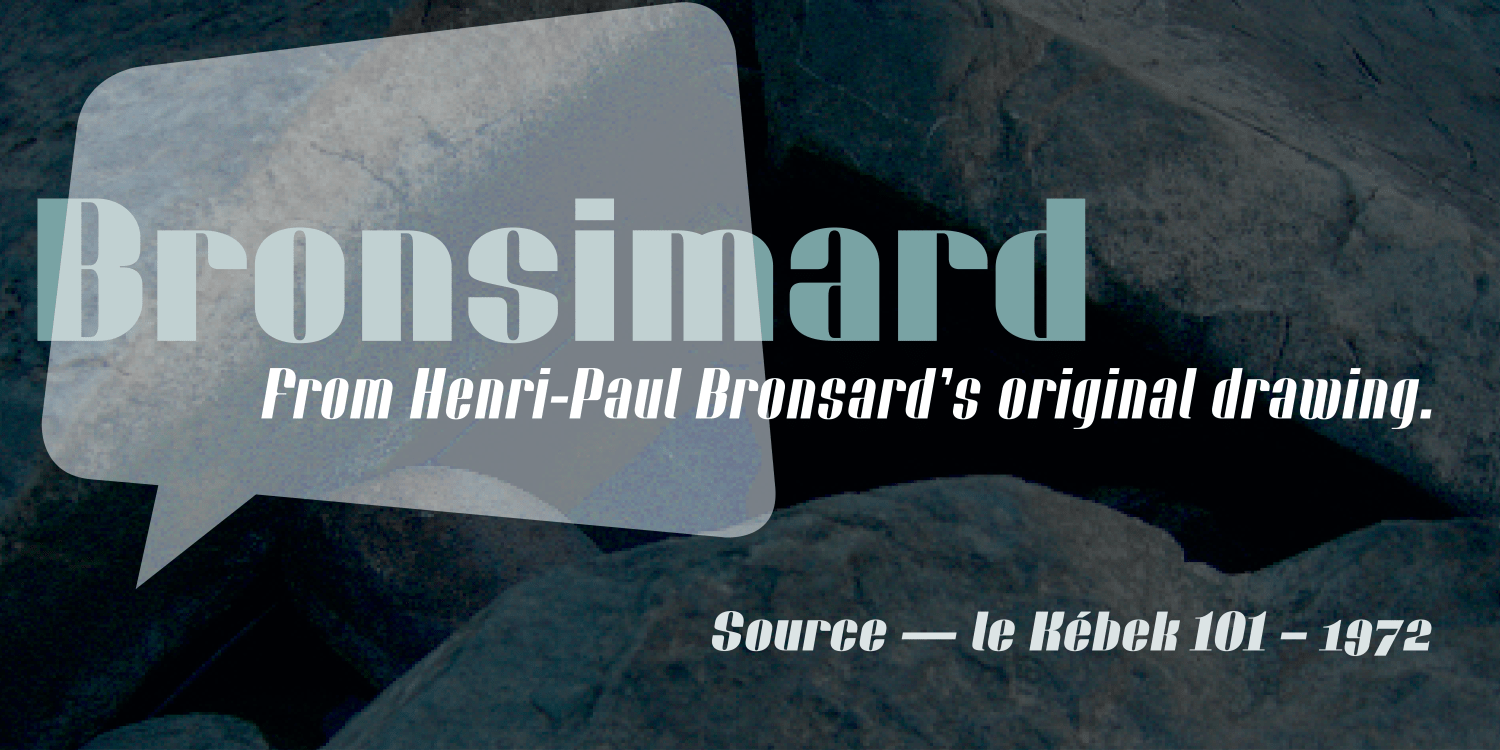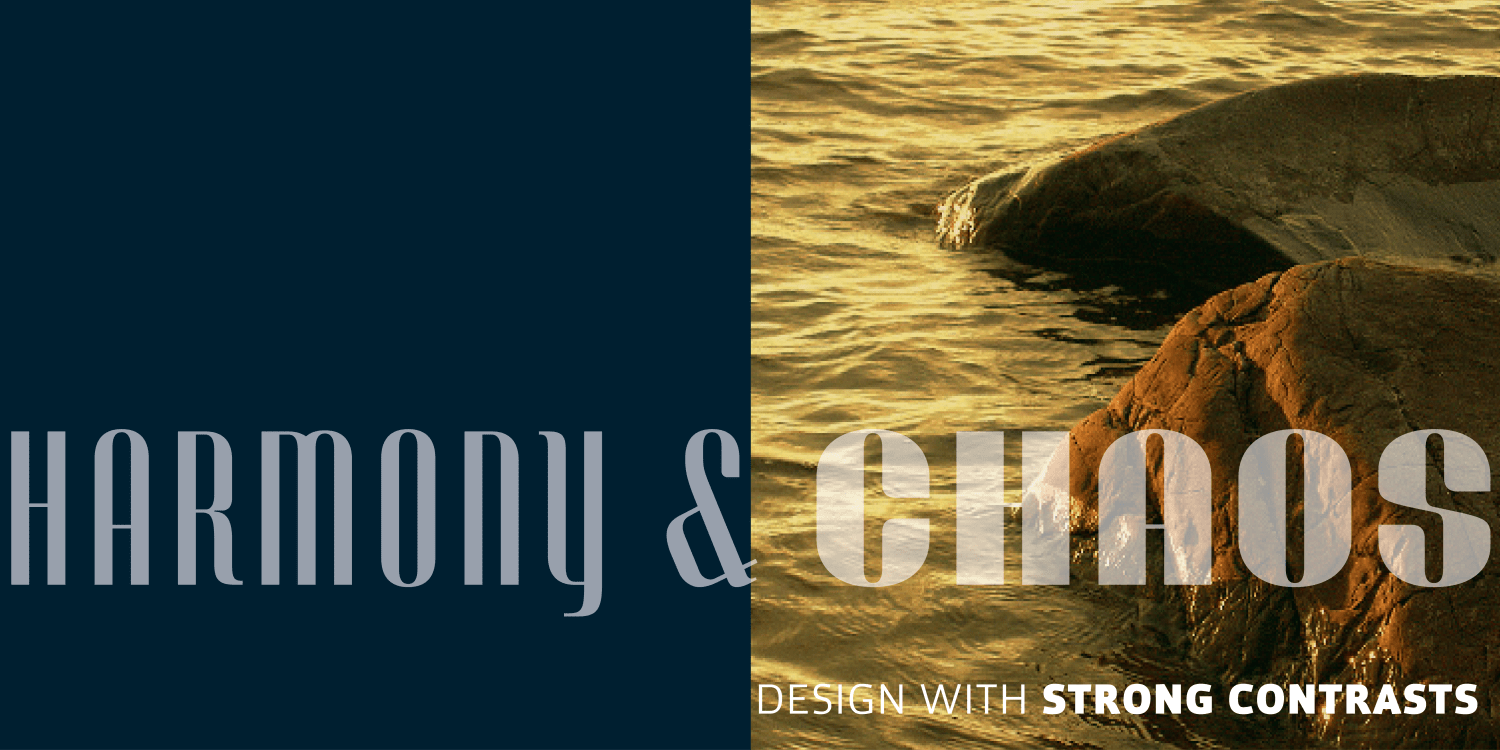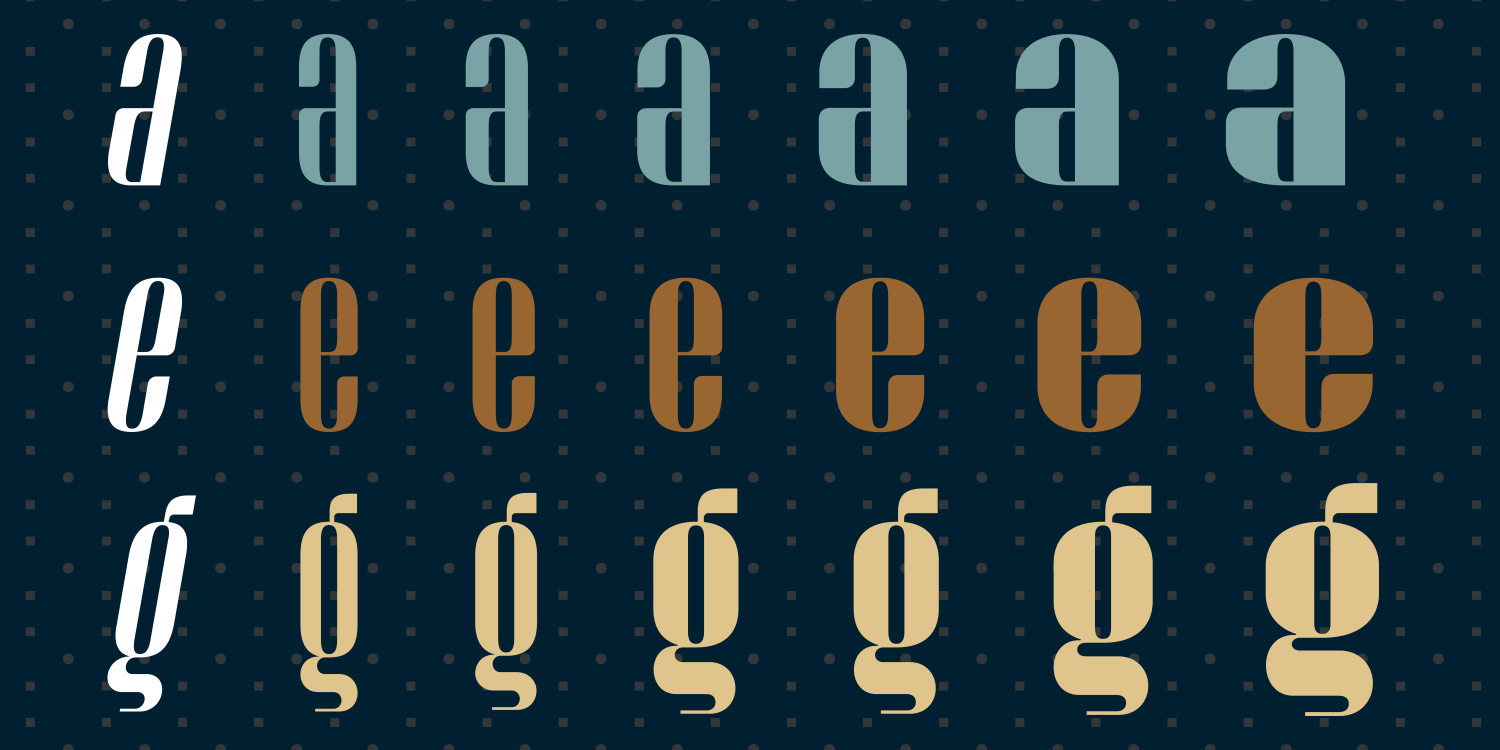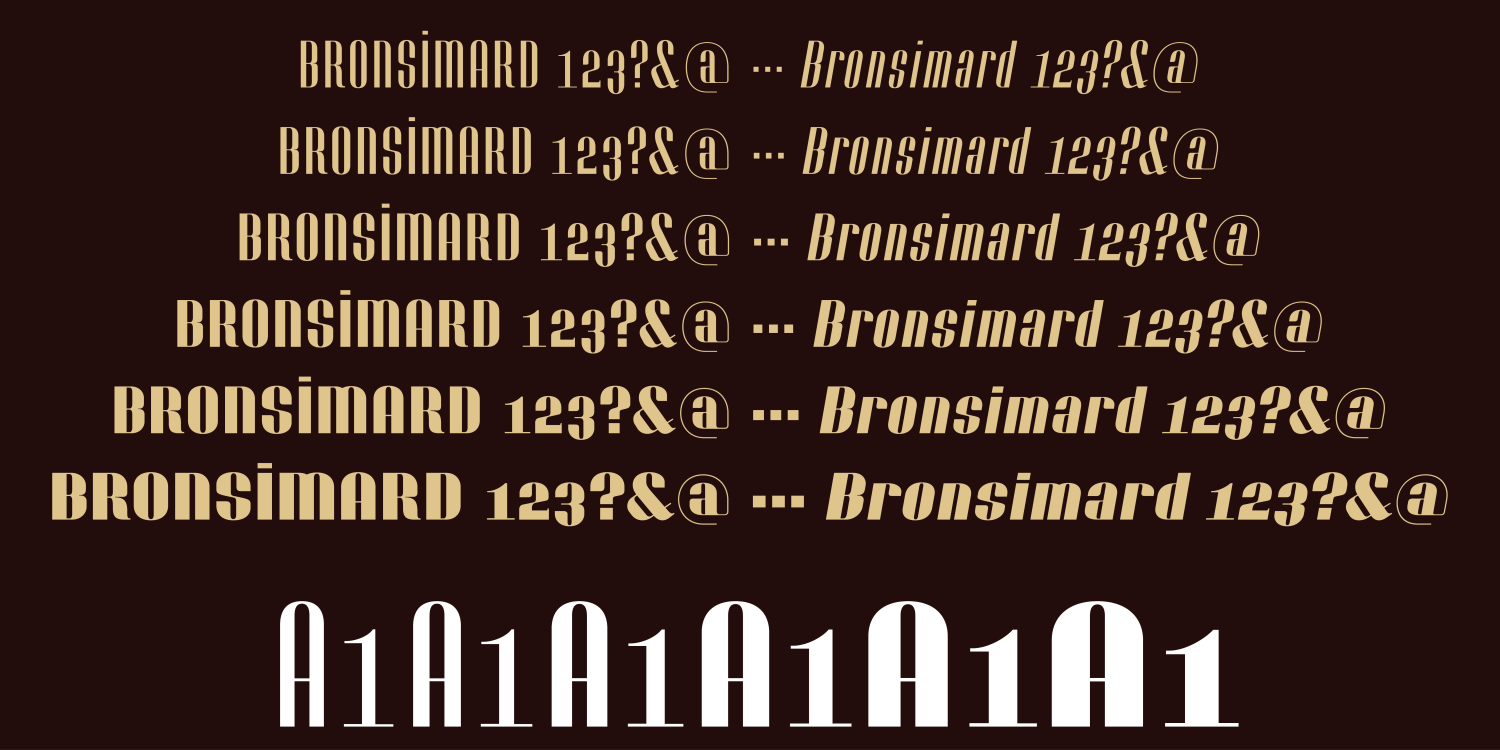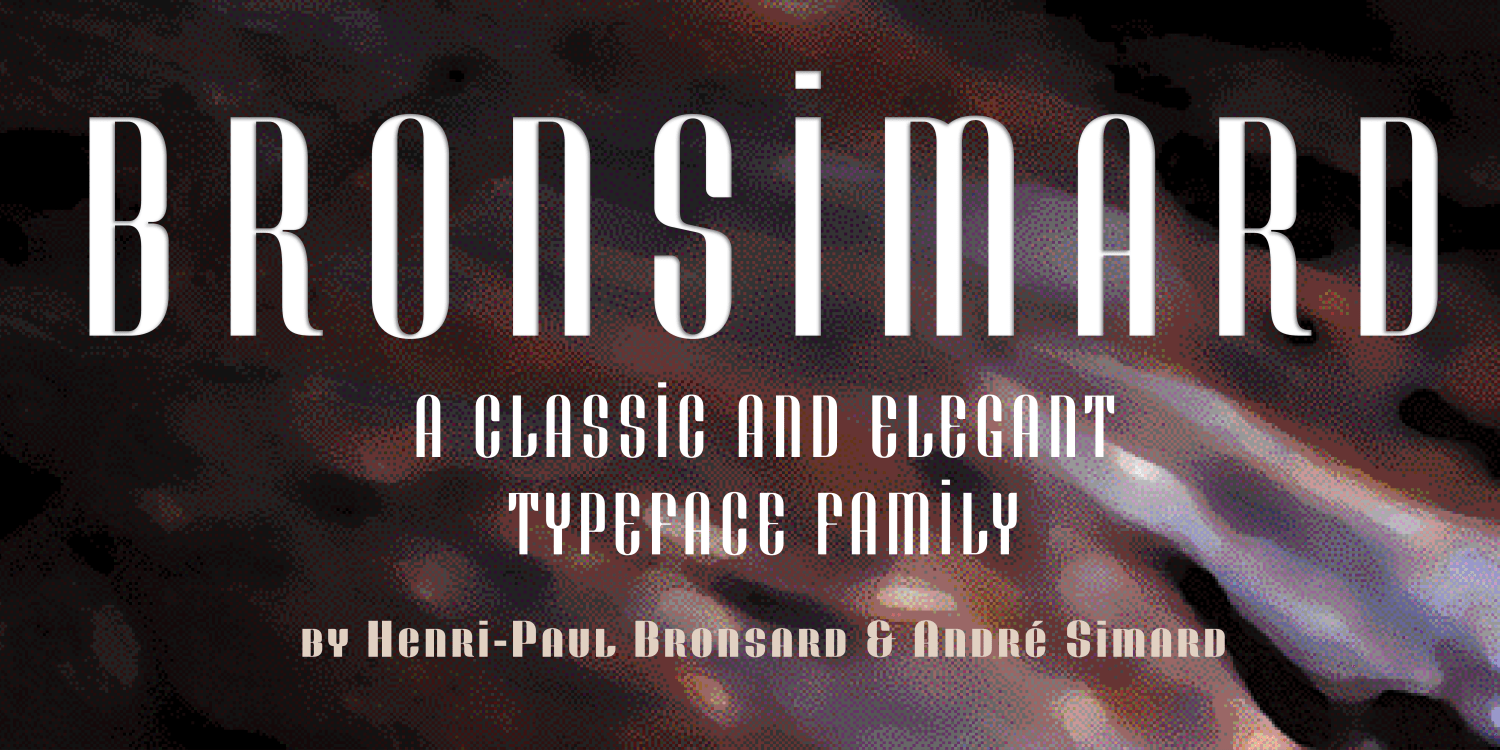
André Simard signs Bronsimard, a font inspired by Henri-Paul Bronsard’s Kébek 101, designed in 1972 and used to create the logo and headlines of the daily newspaper Le Jour, founded in 1978. After all these years, Henri-Paul contacted…